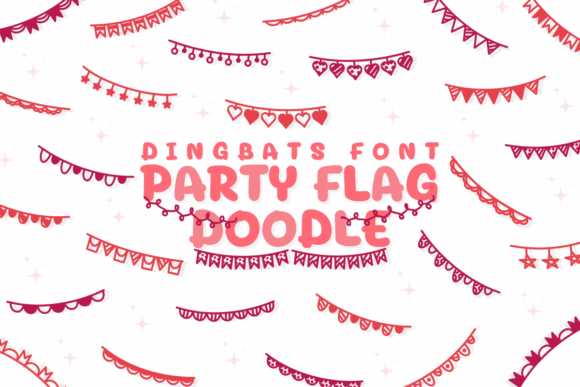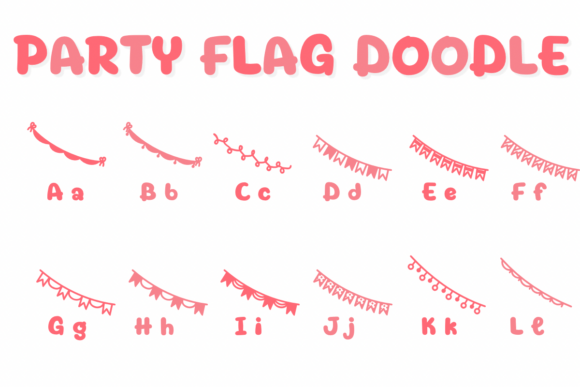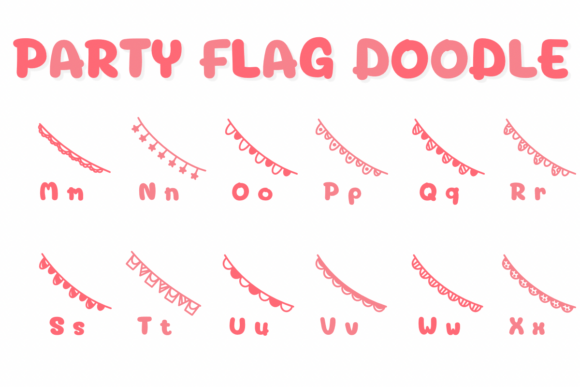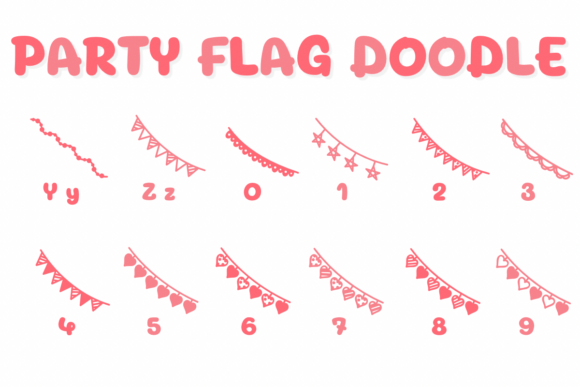
Party Flag Doodle Font: A Cute Dingbats Font for DIY & Crafts
About the Party Flag Doodle Font
Discover the charm of Party Flag Doodle Font. This font is a perfect blend of modern aesthetics and classic appeal. Party Flag Doodle is a dingbats font with theme with a sketch style. This font can enhance your creative projects such as wedding invitations, DIY, crafts, decorations, logos, and many other creative ideas.
Party Flag Doodle’s playful, hand-drawn aesthetic makes it ideal for projects requiring a lighthearted and approachable feel, such as children’s books, branding for artisan goods, or whimsical packaging designs. It excels in headlines, short text snippets, and decorative elements, adding a touch of handcrafted charm. However, its informal nature makes it unsuitable for body text or UI elements where readability is paramount.
For effective pairings, consider complementing its sketched informality with a clean sans-serif like Open Sans for body text, or a more structured serif such as Merriweather for a touch of sophistication. A simple geometric sans-serif like Futura could also provide a striking contrast, enhancing the doodle font’s unique character.
Its overall personality is best described as cheerful and informal, making it perfect for brands focused on fun, creativity, and handmade quality. Avoid using it where a professional or serious tone is needed.
Party Flag Doodle Font Usage Examples
Party Flag Doodle Font Example